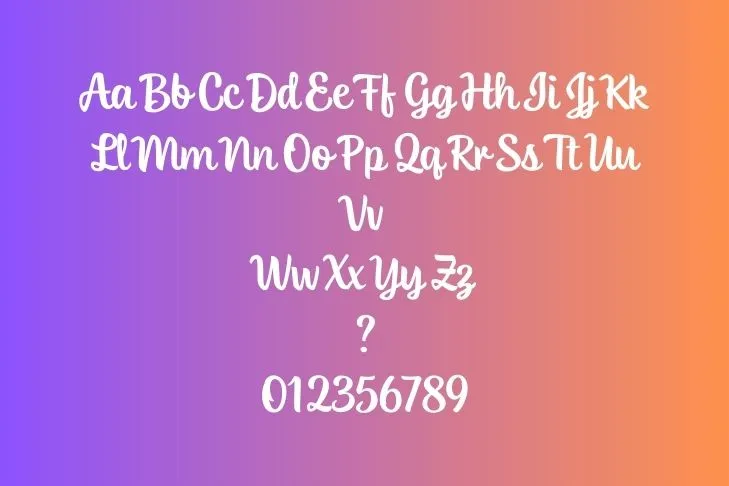
We’re going to present with you a striking and attractive typeface in this article called the Instagram Logo Font. Mike Krieger and Kevin Systrom created this gorgeous typeface. It was made available in October 2010. This font family falls under the category of Display fonts. Its attractive text structure allows them to create various kinds of projects.
Instagram is basically a social site where you can create your account and you may share pictures and videos with your friends and family. You can also capture images and record voiceovers and edit them using a variety of filters. The online generator tool for this font allows you to generate various textures that match the typeface.
Characters and Weights of Instagram Logo Font
There are several elegant and subtle features of this appealable typeface and these beautiful aesthetics let the designers create striking designs and patterns. It is comprised of an astounding set of glyphs ligatures and various stylistic alternates. Its character set includes numerals, punctuations, and symbols along with upper and lowercase alphabets.
This versatile typeface is supported by several languages including English, Roman, Turkish, and Spanish, as well as it is also supported by Cyrillic and Latin alphabets. Moreover, it is also facilitated by multilingual characters and all these attributes make it a distinctive typeface.
More Ways to Use Instagram Logo Font
This typeface works well for many various purposes, such as logos, titles, and body content. You can make many different designs with the use of these characters, including Instagram captioning, icons, stories, comments, posts, and profile pictures.
The majority of designers utilized this typeface for a variety of designs, including news articles, texts for the body, signage, badges, and visuals for games. This typeface is comparable to the Runescape font. Software like Canva and Adobe Photoshop employs this typeface. Using this exquisite typeface, you may also manufacture personalized t-shirts and pants that stand apart from other fashion apparel.
Paring Fonts For Instagram Logo Font
What kind of font is the Instagram Logo font?
This font family falls under the category of Display fonts. Its attractive text structure allows them to create various kinds of projects. Mike Krieger and Kevin Systrom created this gorgeous typeface.
What is the usage of Instagram Logo Font?
This typeface works well for many various purposes, such as logos, titles, and body content. You can make many different designs with the use of these characters, including icons, stories, comments, posts, and profile pictures.